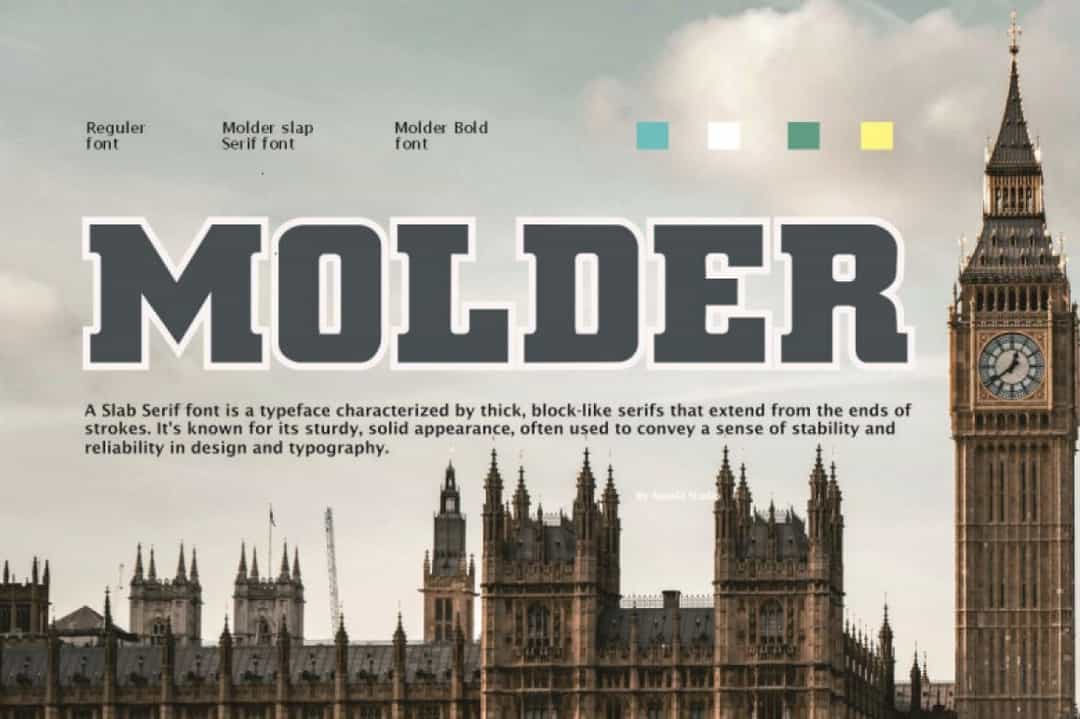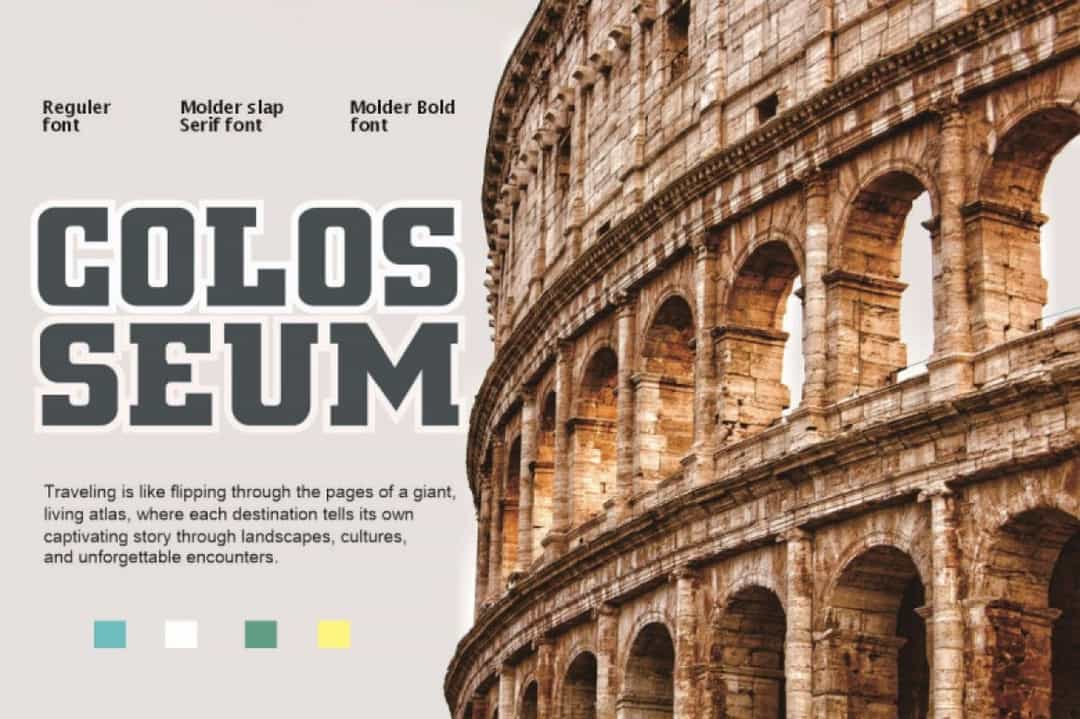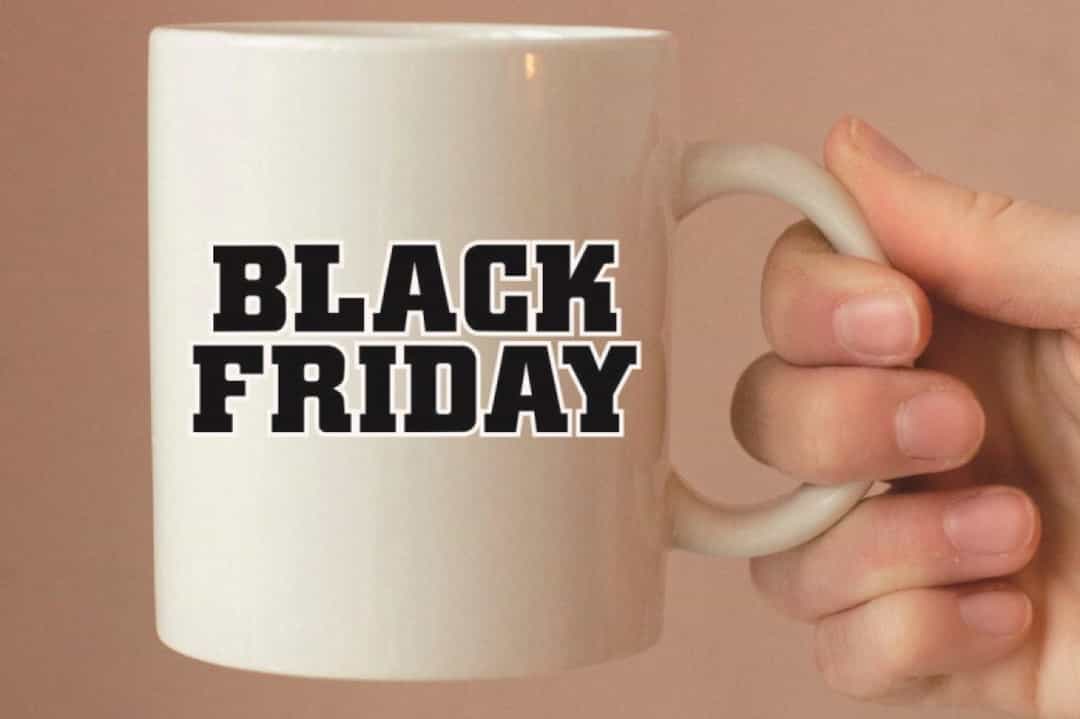
Molder is a bold slab serif font that features a shapely, no-nonsense lettering style that is both vigorous and sophisticated; every word is a proclamation of assurance and readability. This font is trendy and will attract attention to your work which makes it ideal for logos, branding, and design to give your artwork a modern feel.